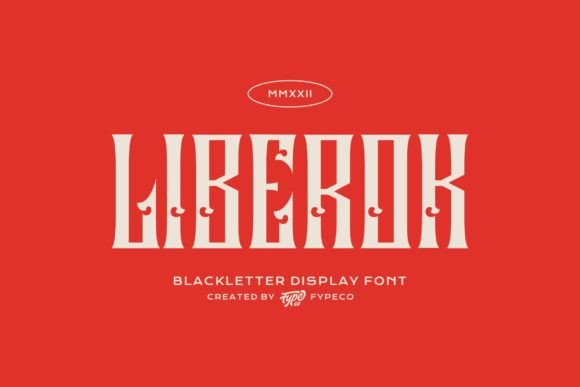
**Introducing Liberok: The Ultimate Blackletter Font for Captivating Designs**
Unleash your creativity and make an unforgettable impact with Liberok, the extraordinary blackletter font that oozes authenticity and visual intrigue. Liberok is your go-to font for crafting captivating posters that command attention, creating unique branding that stands out, and designing exquisite cards that leave a lasting impression. Dive into the world of tattoos and let Liberok's intricate details adorn your skin with a touch of timeless elegance.
**Crafted with Precision for Effortless Design**
**Embrace the Power of Blackletter**
Indulge in the captivating charm of blackletter typography with Liberok. Its intricate strokes and flowing curves evoke a sense of medieval grandeur, adding an air of sophistication to your designs.
**Capture Attention with Posters that Speak Volumes**
Liberok transforms your posters into captivating masterpieces. Let its bold presence command attention, drawing eyes to your message and ensuring that your designs leave a lasting imprint on your audience.
**Create Brands that Exude Distinction**
Infuse your branding with an unforgettable identity using Liberok. Its distinctive character lends a touch of exclusivity to your logo, packaging, and marketing materials, setting your brand apart from the ordinary.
**Design Cards that Evoke Emotions**
Conjure up heartfelt emotions through exquisite cards adorned with Liberok's elegant script. Its delicate strokes add a touch of personal flair, making your cards cherished keepsakes that convey your sentiments in a truly captivating way.
**Unleash Your Artistic Vision**
Liberok is not merely a font; it is an invitation to unleash your artistic potential. Its versatility empowers you to explore diverse design realms, from bold tattoos to captivating book covers. With Liberok as your companion, your imagination is the only limit.